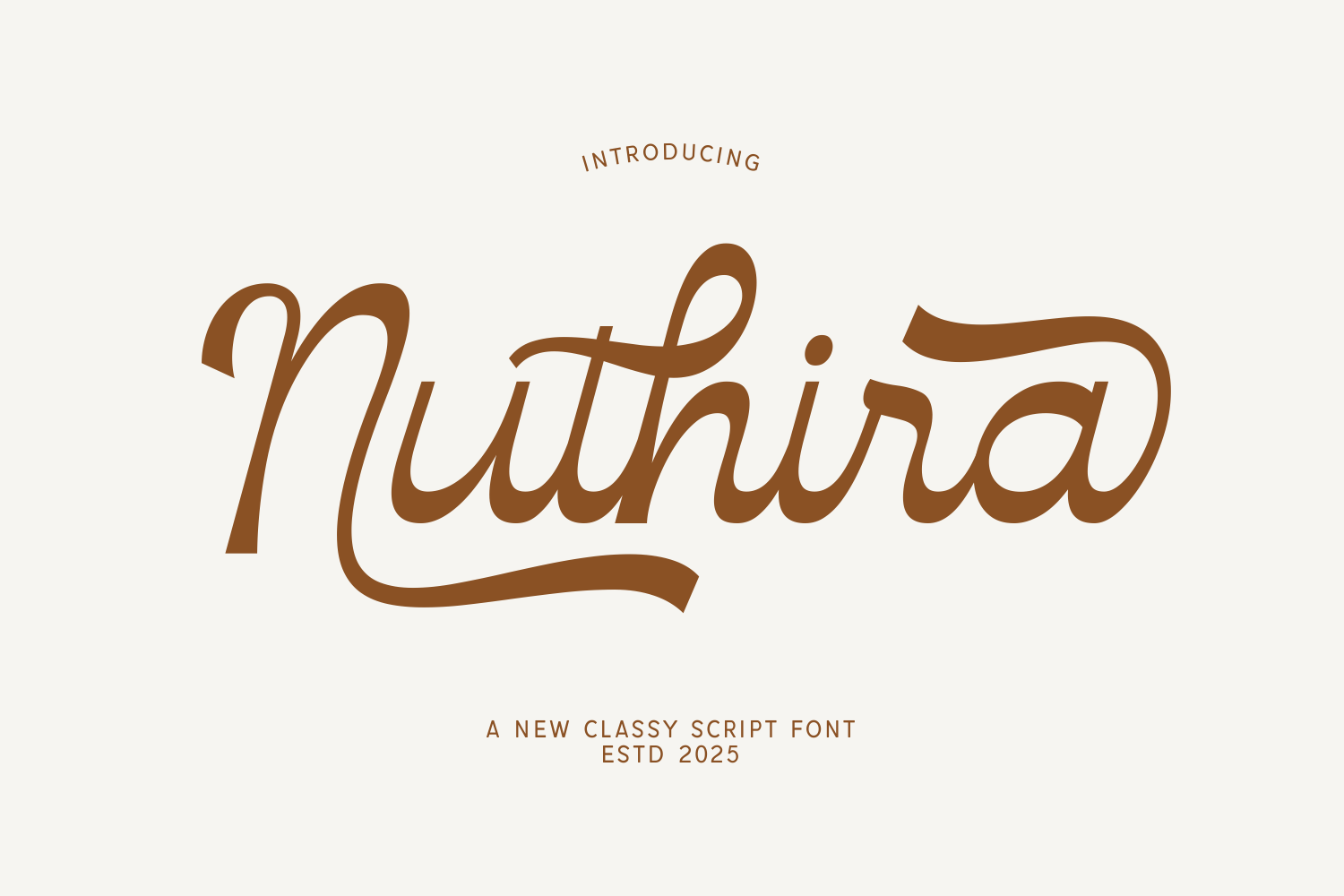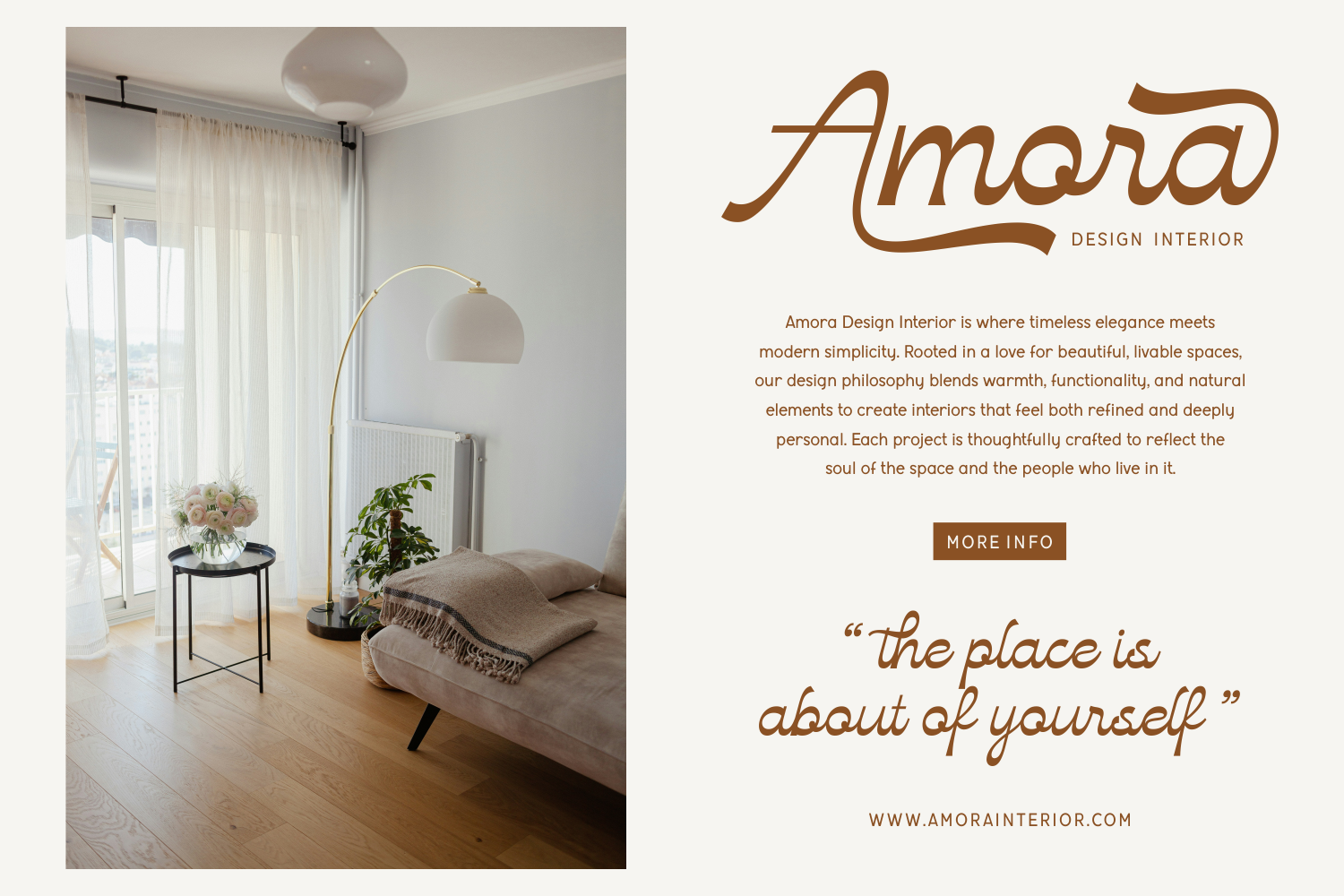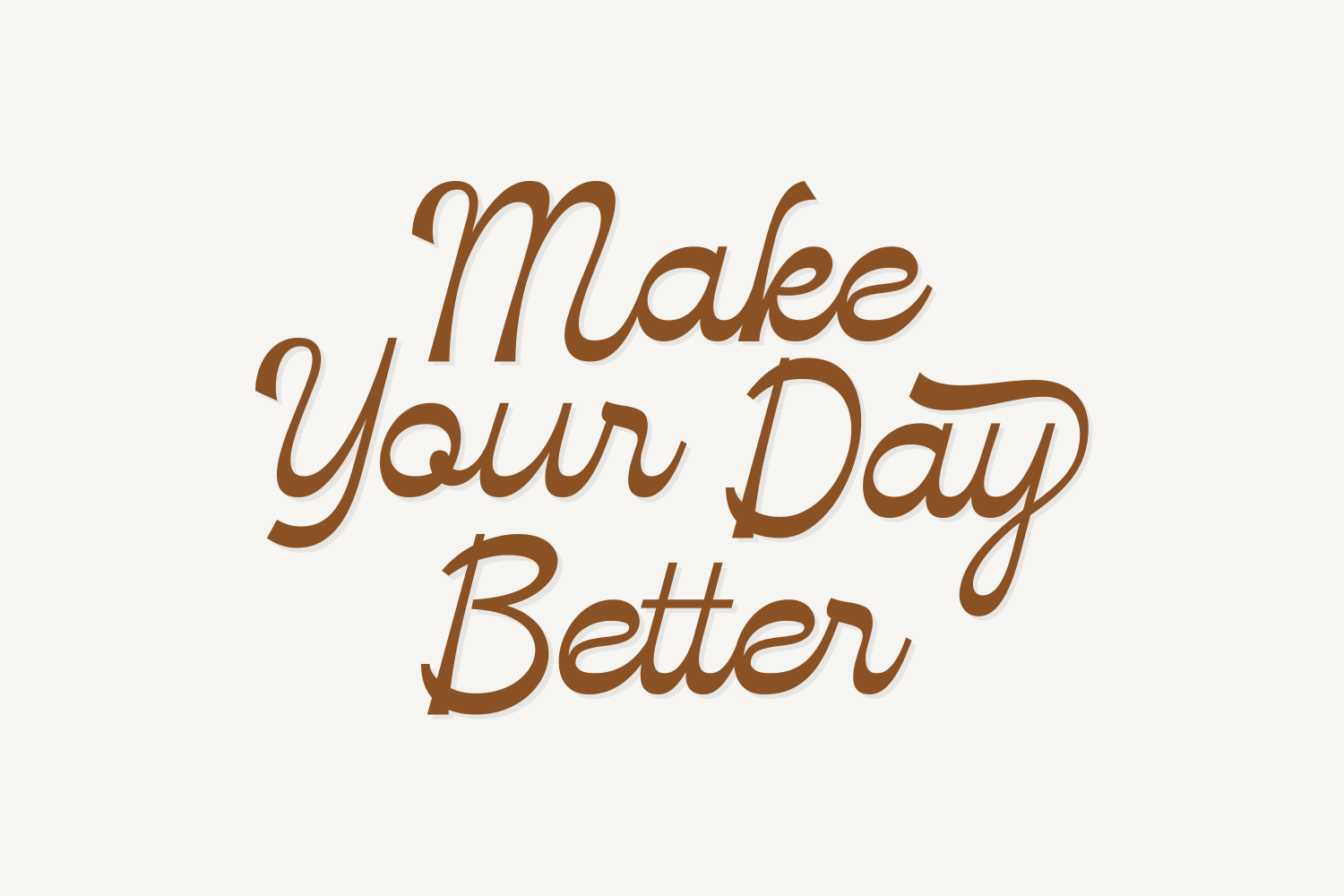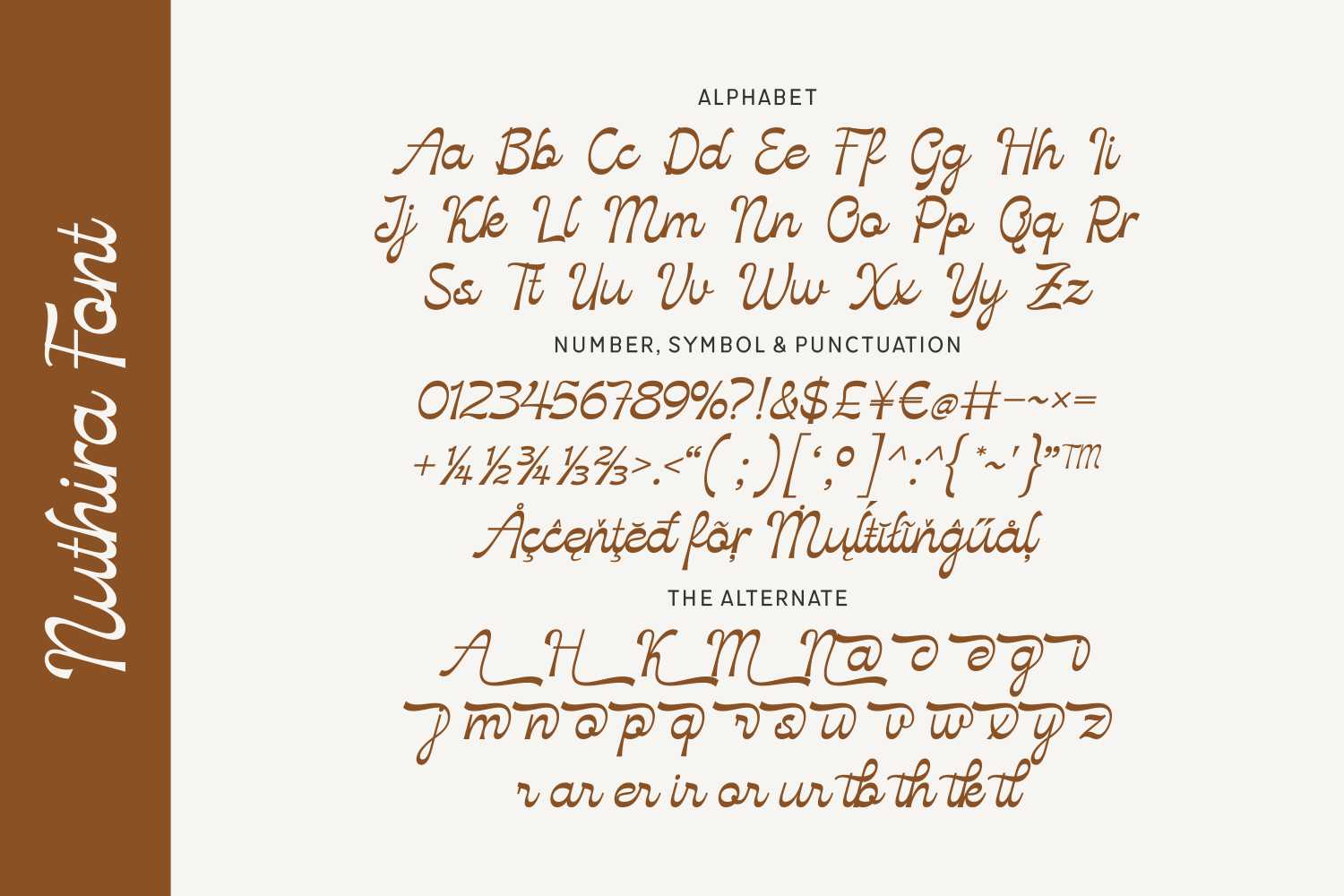
Nuthira is a refined and sophisticated script font that exudes both modern charm and timeless class.
Designed with elegance in mind, Nuthira features a full suite of alternates, stylish ligatures, and multilingual support to offer exceptional flexibility for creative designers.